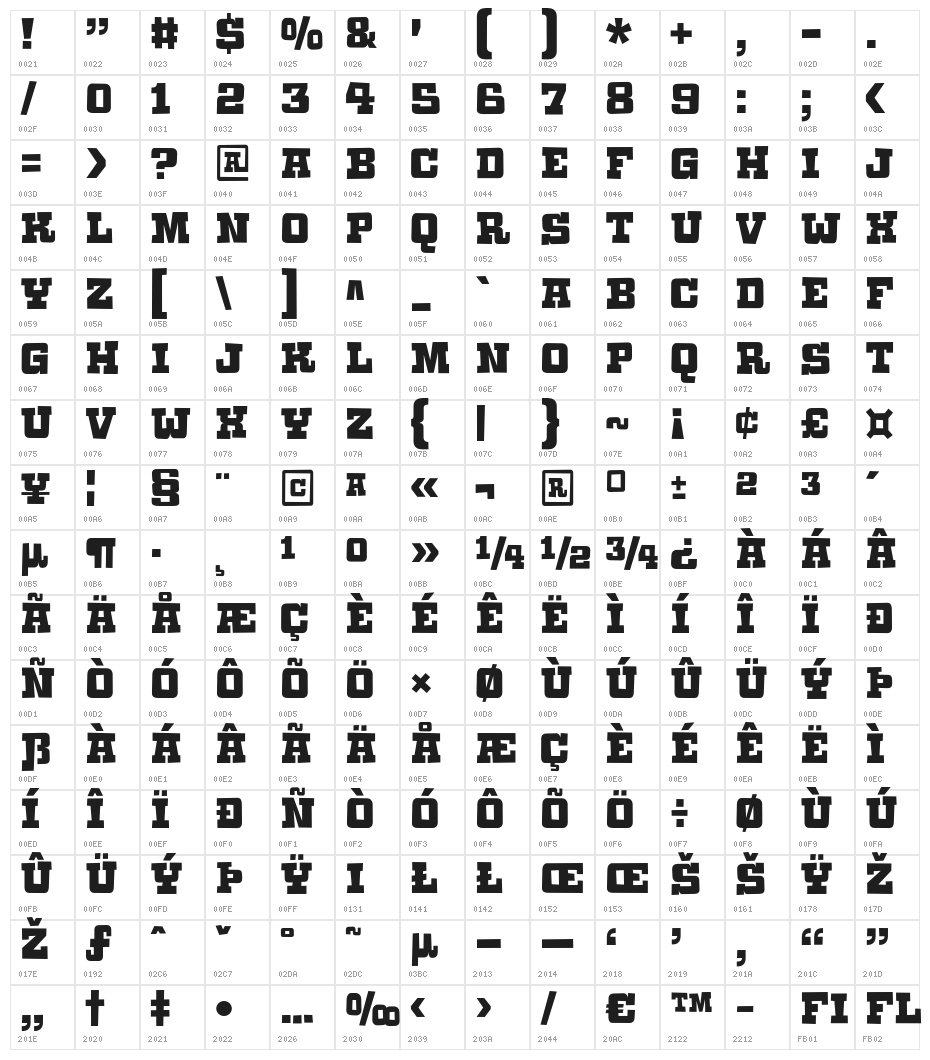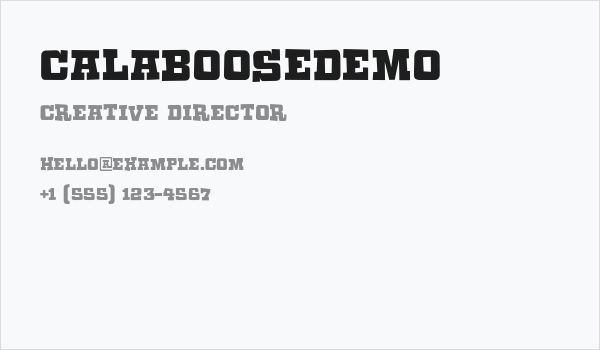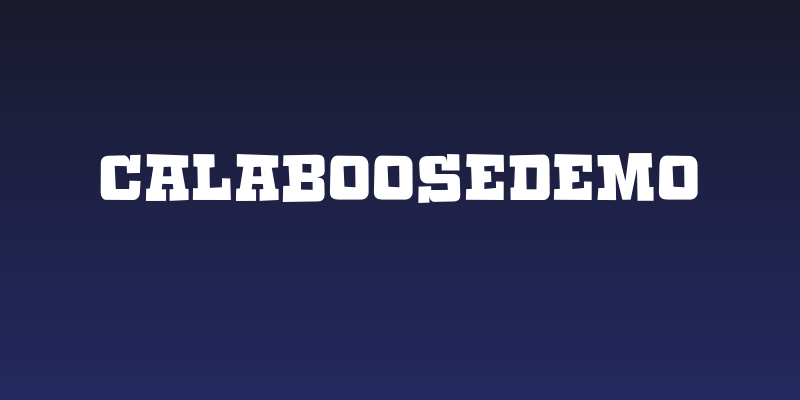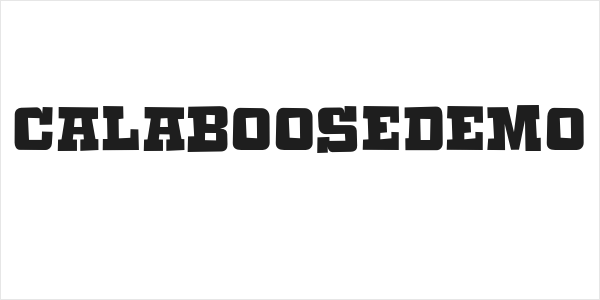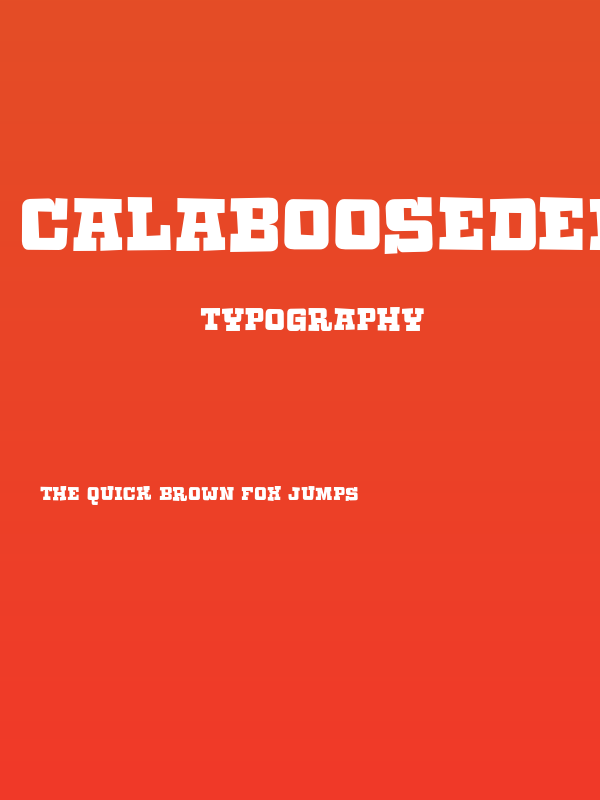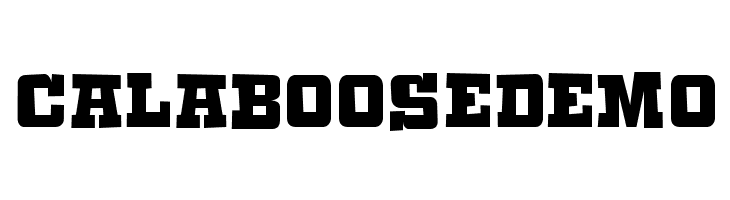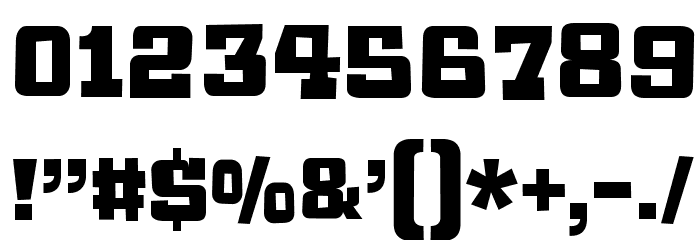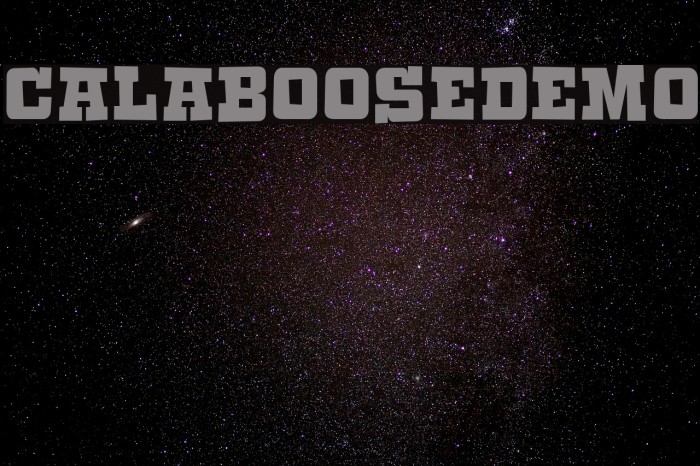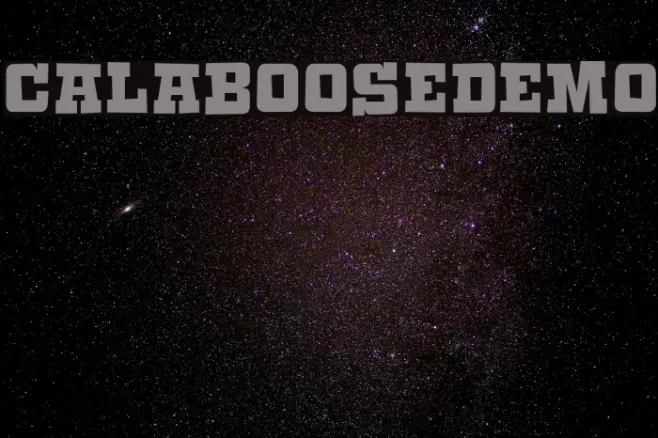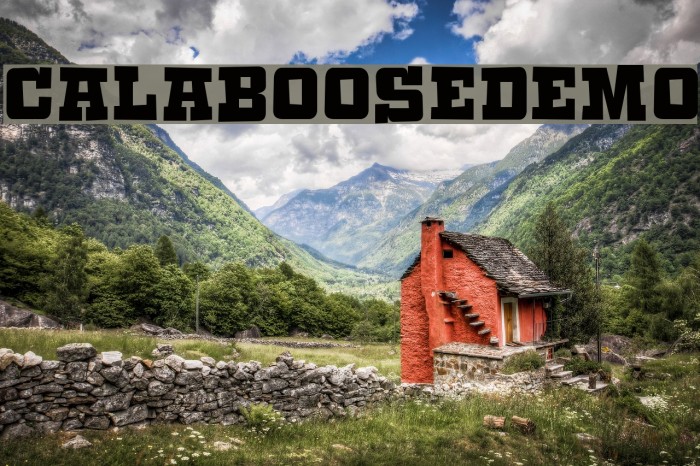
CalabooseDEMO Font
CalabooseDEMO Description
This font features a bold, robust design with strong, block-like characters that convey a sense of strength and stability. The uppercase letters are particularly striking, with thick strokes and a slightly condensed appearance that enhances their impact. The lowercase letters maintain the same boldness, ensuring consistency across all text. Numbers and special characters are equally bold, making them stand out in any context. The font's style is reminiscent of classic Western or vintage designs, often used in contexts that require a strong visual presence. Its high contrast between thick and thin strokes adds to its dramatic effect, making it suitable for attention-grabbing headlines or logos.